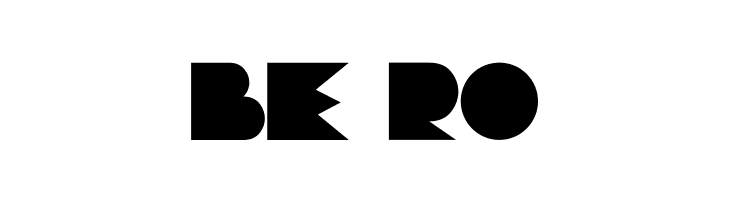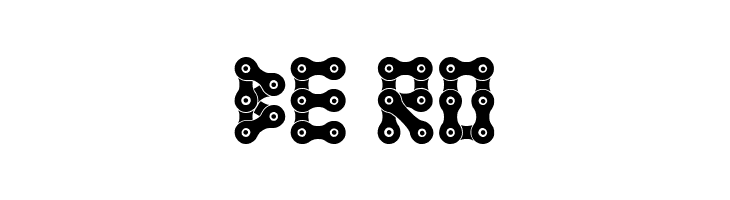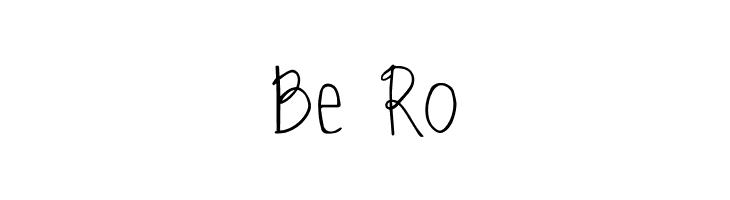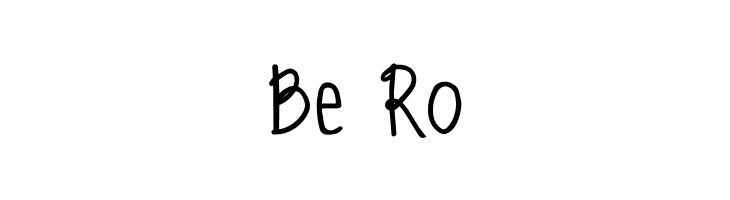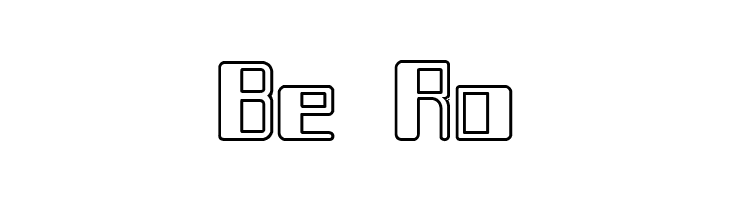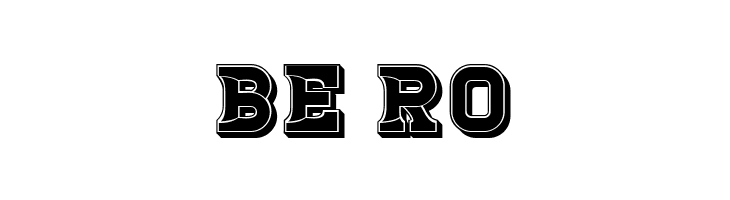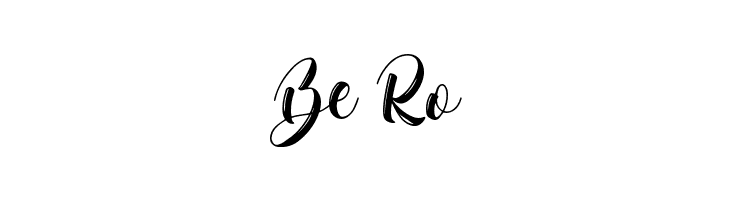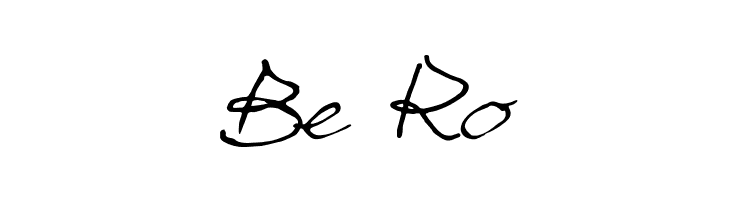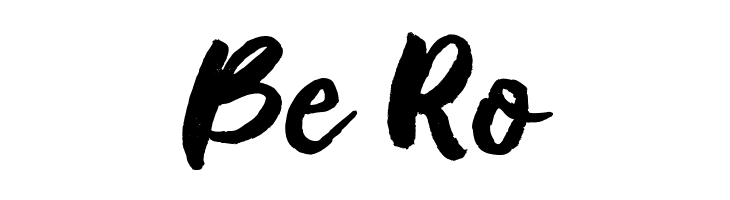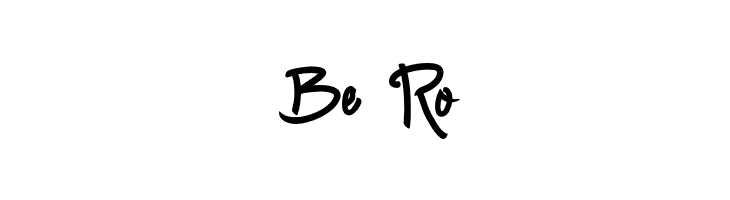
A bold, playful font with rounded, whimsical characters.
A dynamic, expressive handwritten font with fluid, cursive strokes.
A cursive, handwritten font with elegant, flowing strokes.
A bold, high-contrast script font with elegant, flowing letterforms.
A bold, playful handwritten font with dynamic, slanted characters.
A playful, handwritten font with curly, dynamic strokes.
A playful, handwritten font with a lively and dynamic appearance.
A playful, hand-drawn font with uneven strokes and a whimsical style.
A whimsical, hand-drawn font with dynamic strokes and artistic flair.
An ornate and decorative font with intricate flourishes and sharp serifs.
A bold, brush-style script font with dynamic, cursive forms.
A decorative font styled with interconnected chain links for a bold, industrial look.
A bold, italicized font with angular, futuristic letterforms.
A decorative font styled like interconnected bicycle chains.
A bold, modern script font with interconnected characters and a dynamic flow.
A bold, slanted font with thick strokes and a dynamic style.
A decorative font with characters made of interconnected chain links.
A decorative font with characters designed as chain links, offering a bold and industrial look.
A modern, interconnected script font with a chain-like appearance.
A modern, script-inspired font with smooth, flowing lines and a slightly condensed style.
A bold, decorative font with a three-dimensional shadow effect.
A rugged, distressed font with a chaotic, edgy appearance.
A bold, geometric font with sharp angles and a striking appearance.
A bold, geometric font with sharp angles and circular shapes.
A jagged, edgy font with a chainsaw blade aesthetic, perfect for bold designs.
A bold, jagged, italicized font with a rugged, chainsaw-cut appearance.
A bold, jagged font with a chainsaw-like edge, perfect for dramatic designs.